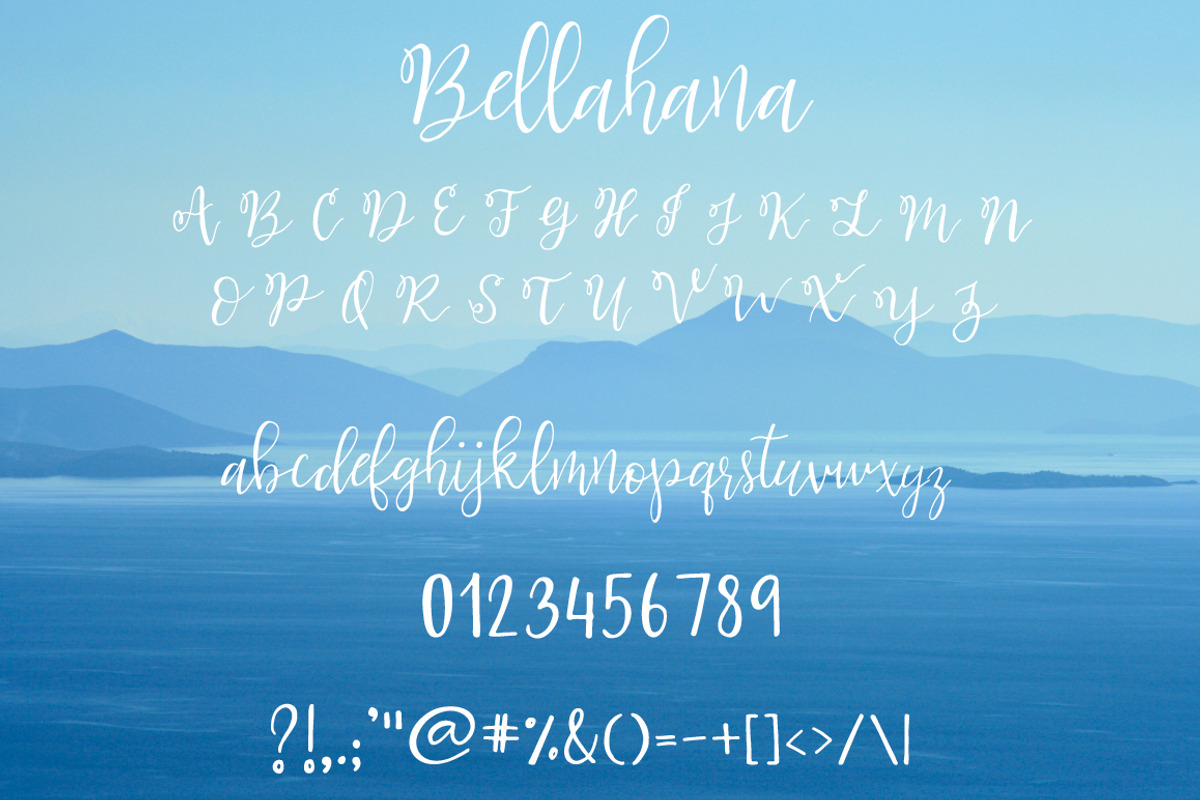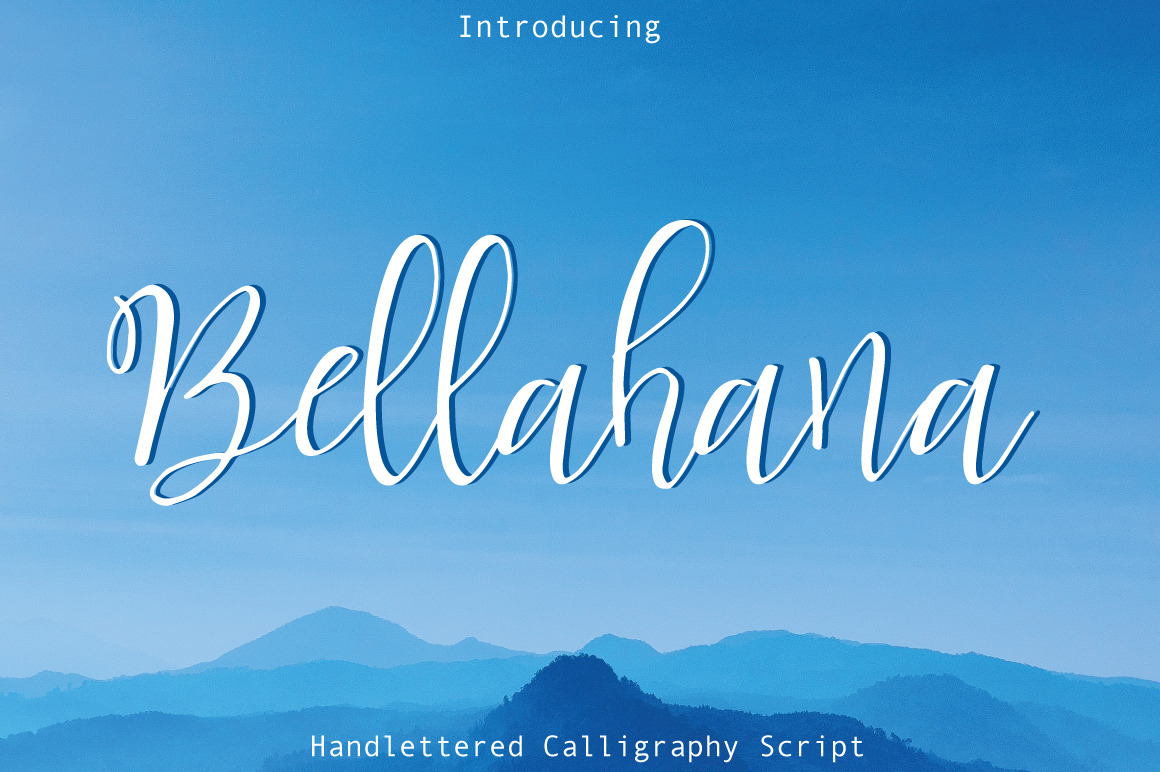
Bellahana Script Font
Bellahana Script
It's handwritten script font.
This font are perfect for wedding invitation or your blog. You can create a logo Or just use for your small business, book covers, stationery and more.